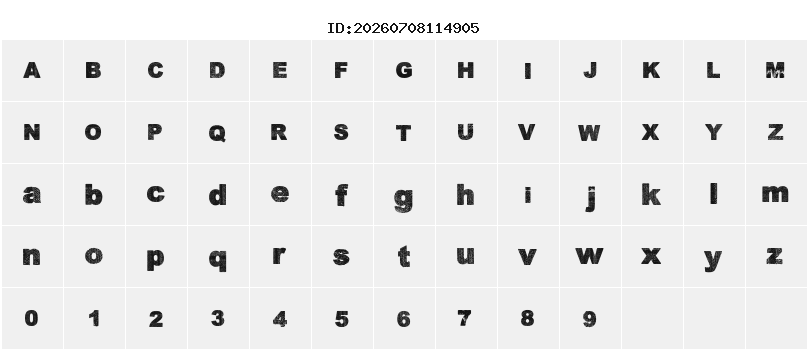
• Font Name: Dabre Grunge
• Designer: Dabre Grunge
Dabre Grunge.otf is a modern, elegant sans-serif font designed for ultimate readability and visual harmony. Perfect for branding, headlines, web design, and print materials.